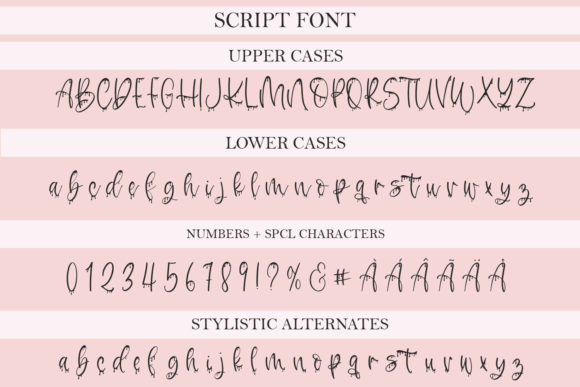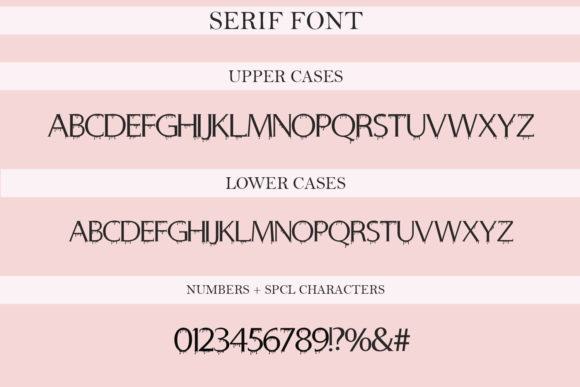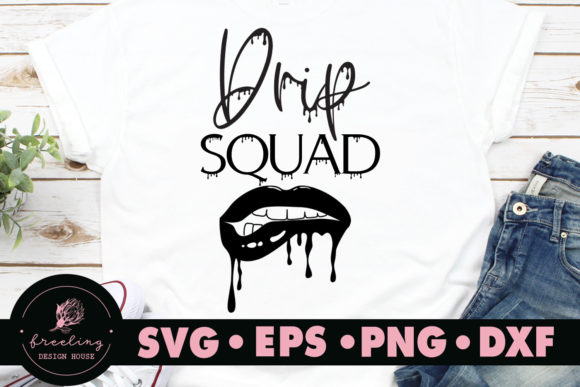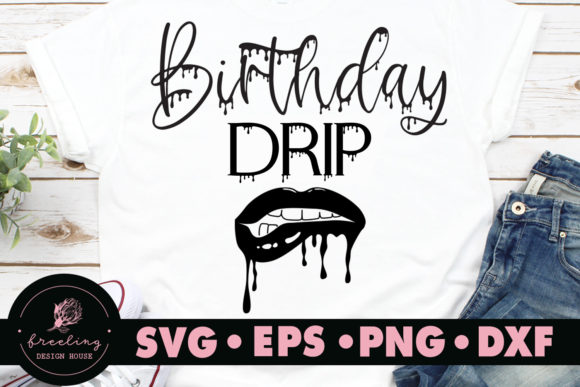
Introduction to Kiss My Lips Font
You’ve spent hours crafting the perfect design for your Instagram post, and just as you’re about to click ‘share’, you realize the font is missing that special something. It’s a frustrating moment that can make or break the aesthetic of your creative project. But what if I told you there’s a font that can elevate your designs to the next level?
Enter the Kiss My Lips Font, a stunning duo font that combines the elegance of serif with the whimsy of script. This high-quality design resource is a game-changer for designers, offering endless possibilities for creative projects. With a transparent background, you can easily combine it with other elements to create a unique look that’s all your own.
Whether you’re looking for a free download or a premium design tool, the Kiss My Lips Font is a must-have for any designer. In this article, we’ll delve into the world of this incredible font and explore why it’s a valuable addition to your design arsenal.
Key Features of Kiss My Lips Font
- High-quality design suitable for creative projects, including posters, flyers, and social media graphics.
- Features a unique, elegant script style that is perfect for adding a touch of sophistication to any design.
- Is ideal for use in various design contexts, including wedding invitations, greeting cards, and branding materials.
Honest Review: Kiss My Lips Font
As a designer, I’m always on the lookout for unique and high-quality design resources to elevate my creative projects. The Kiss My Lips Font is one such gem that I’d like to share with you. ✨
Firstly, I appreciate the fact that this font is available for free download, making it a fantastic addition to any design enthusiast’s collection. The font itself is quite versatile, with a playful, cursive style that’s perfect for titles, headings, and even logos. The transparent background allows for seamless integration into various design elements, adding a touch of sophistication to any creative project.
Here are some pros and cons of using the Kiss My Lips Font:
- ✨ High-quality design with a unique, cursive style
- ⚠️ Limited font sizes and styles, which may limit its versatility in certain projects
- ⚠️ May not be suitable for body text due to its playful, cursive style
Overall, I’m impressed with the Kiss My Lips Font and would recommend it for creative projects where a high-quality, cursive font is needed. Just keep in mind its limitations and use it accordingly.